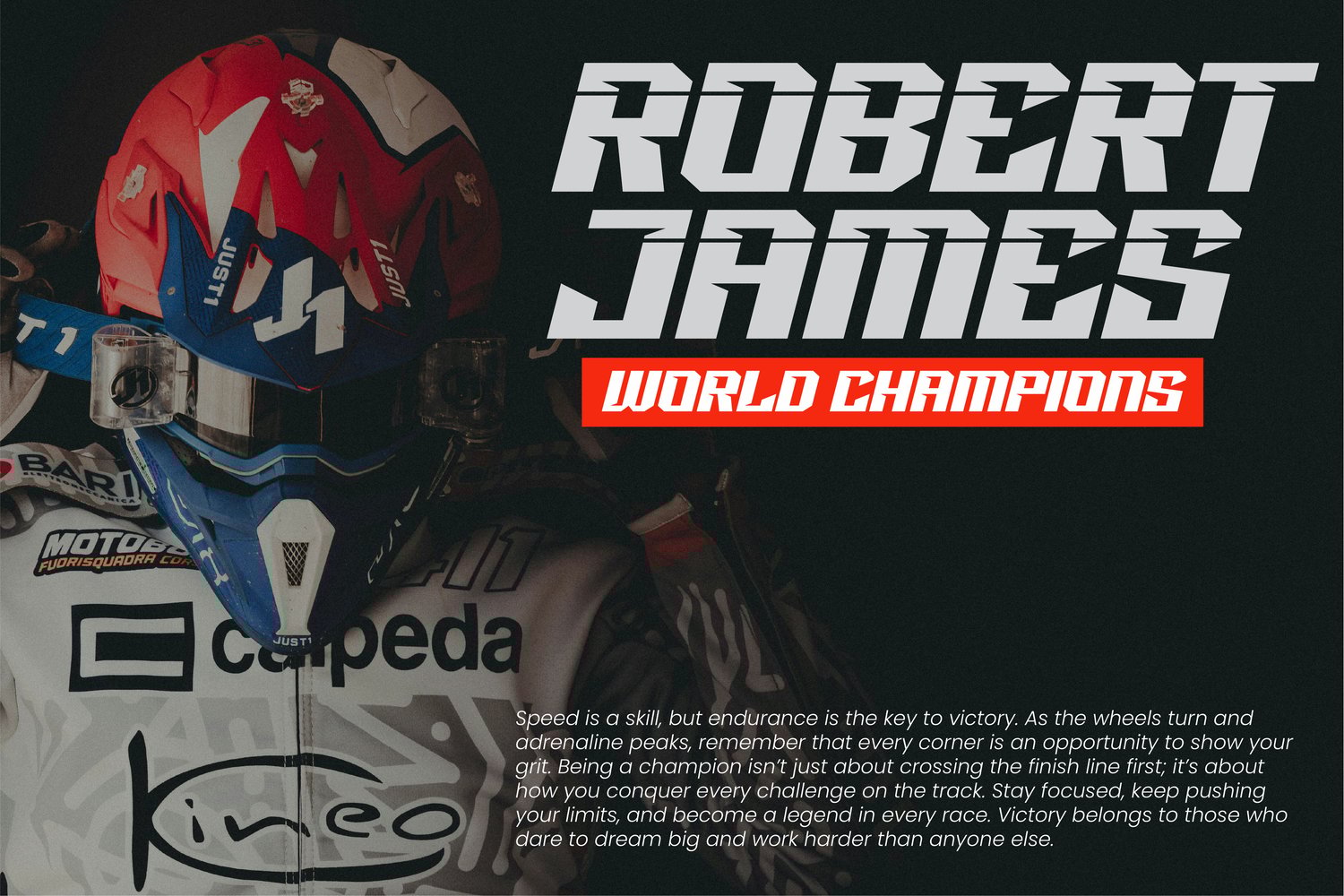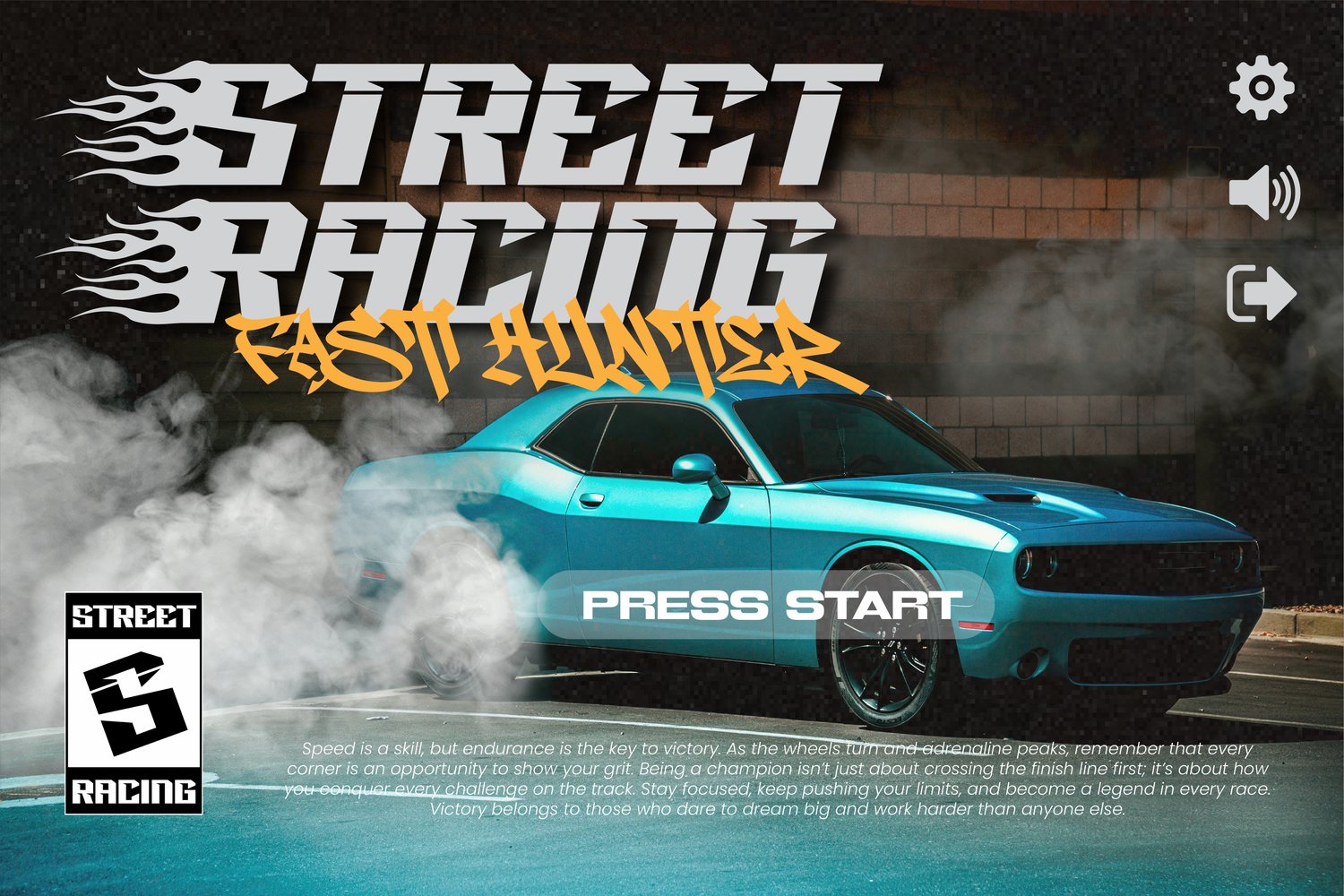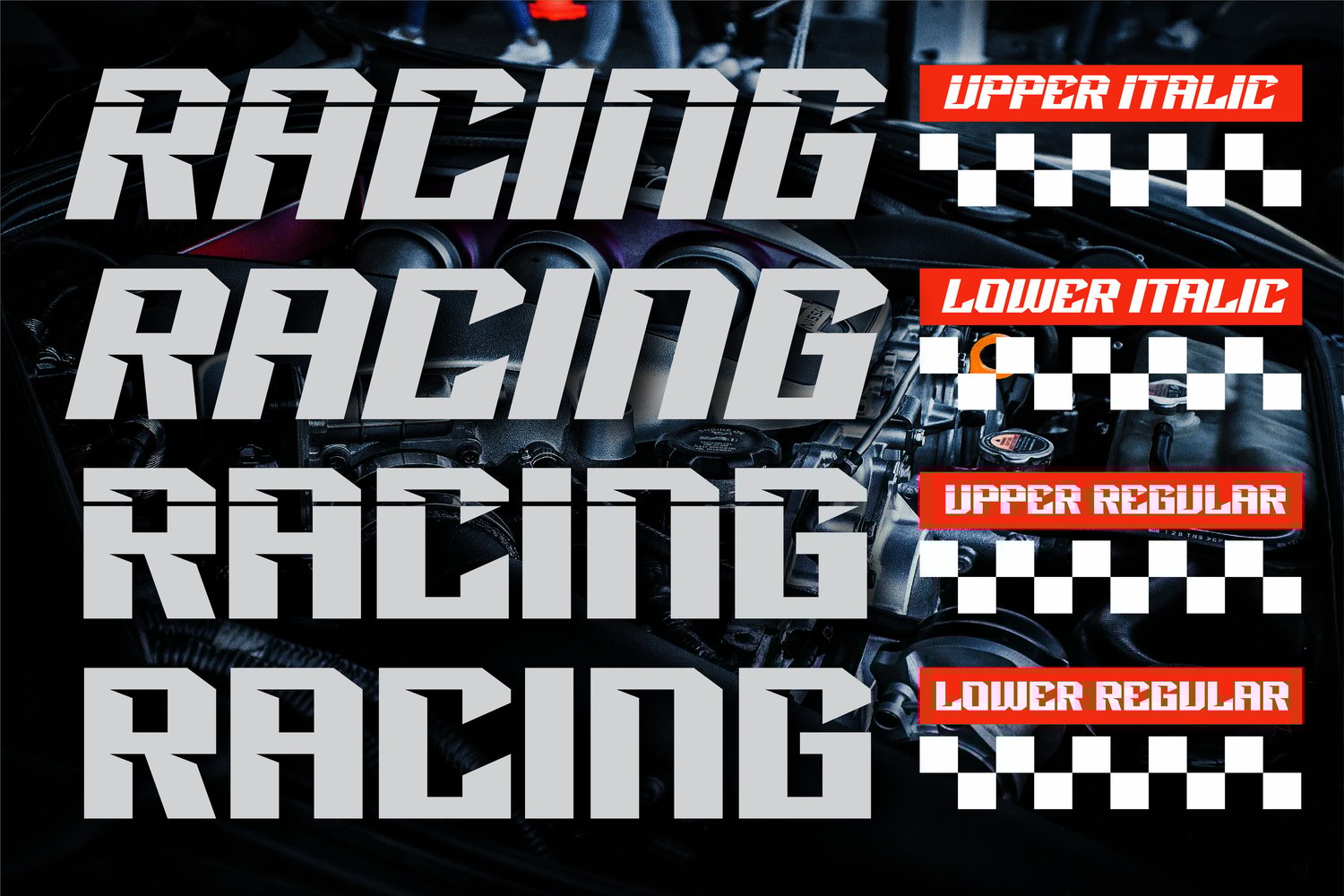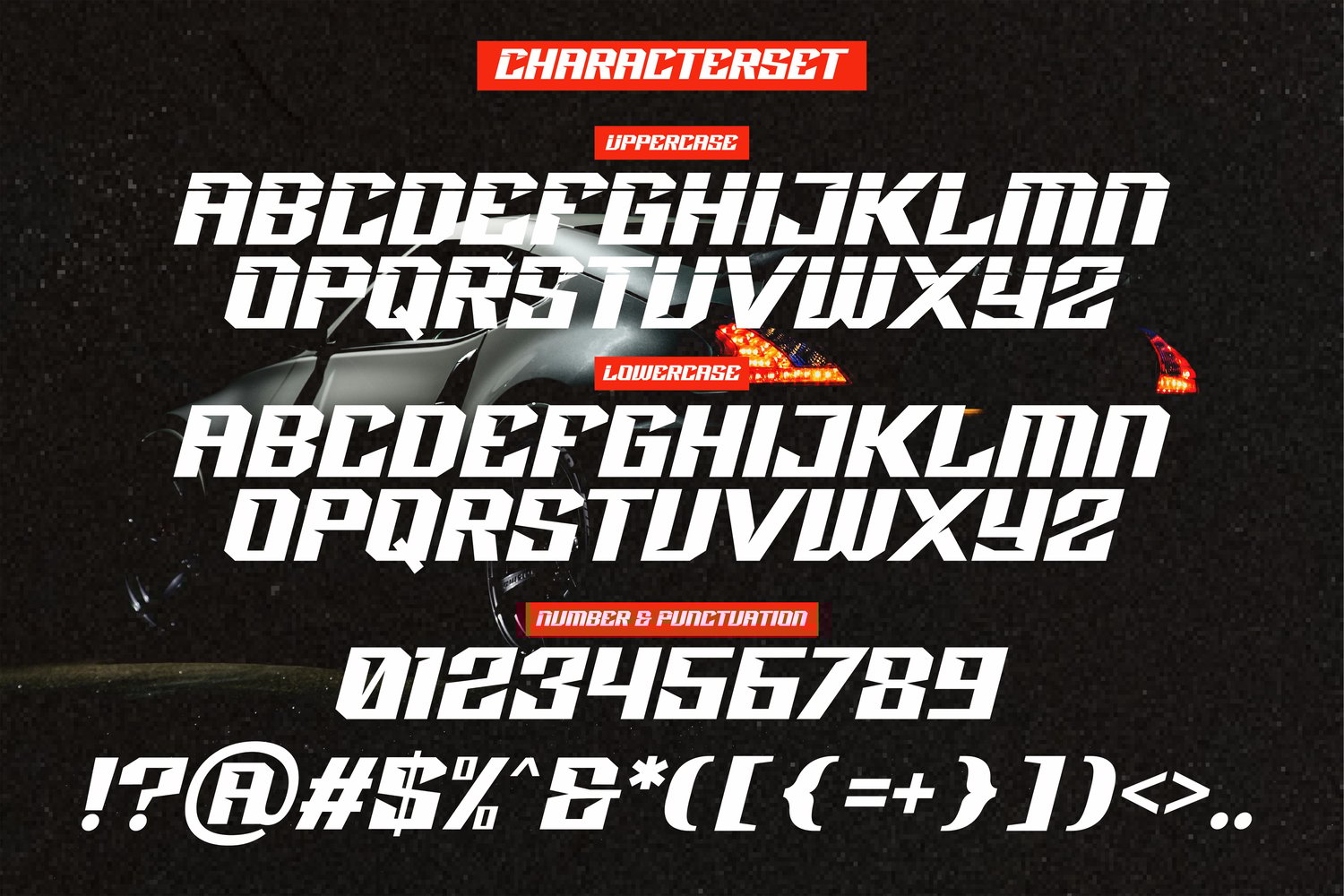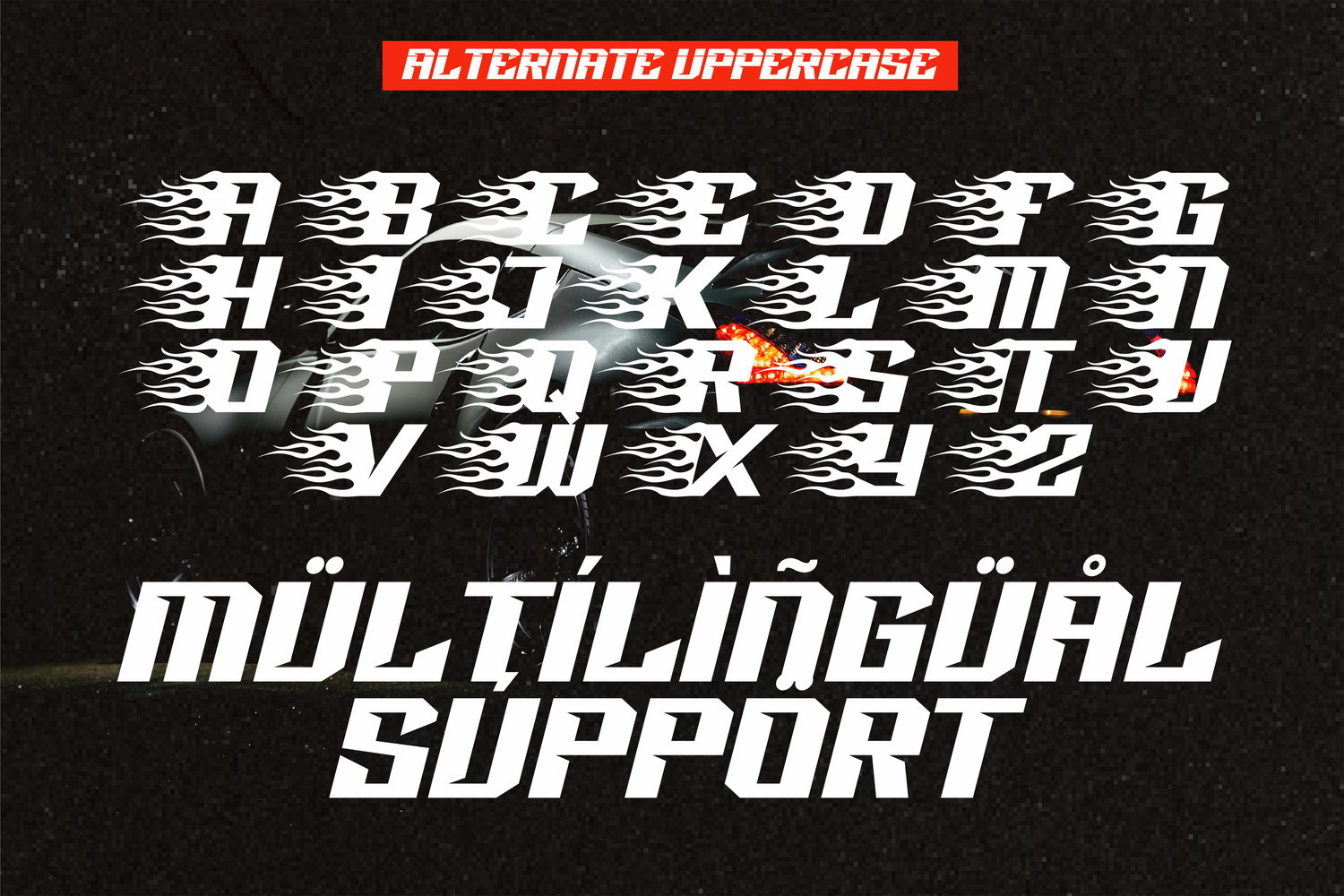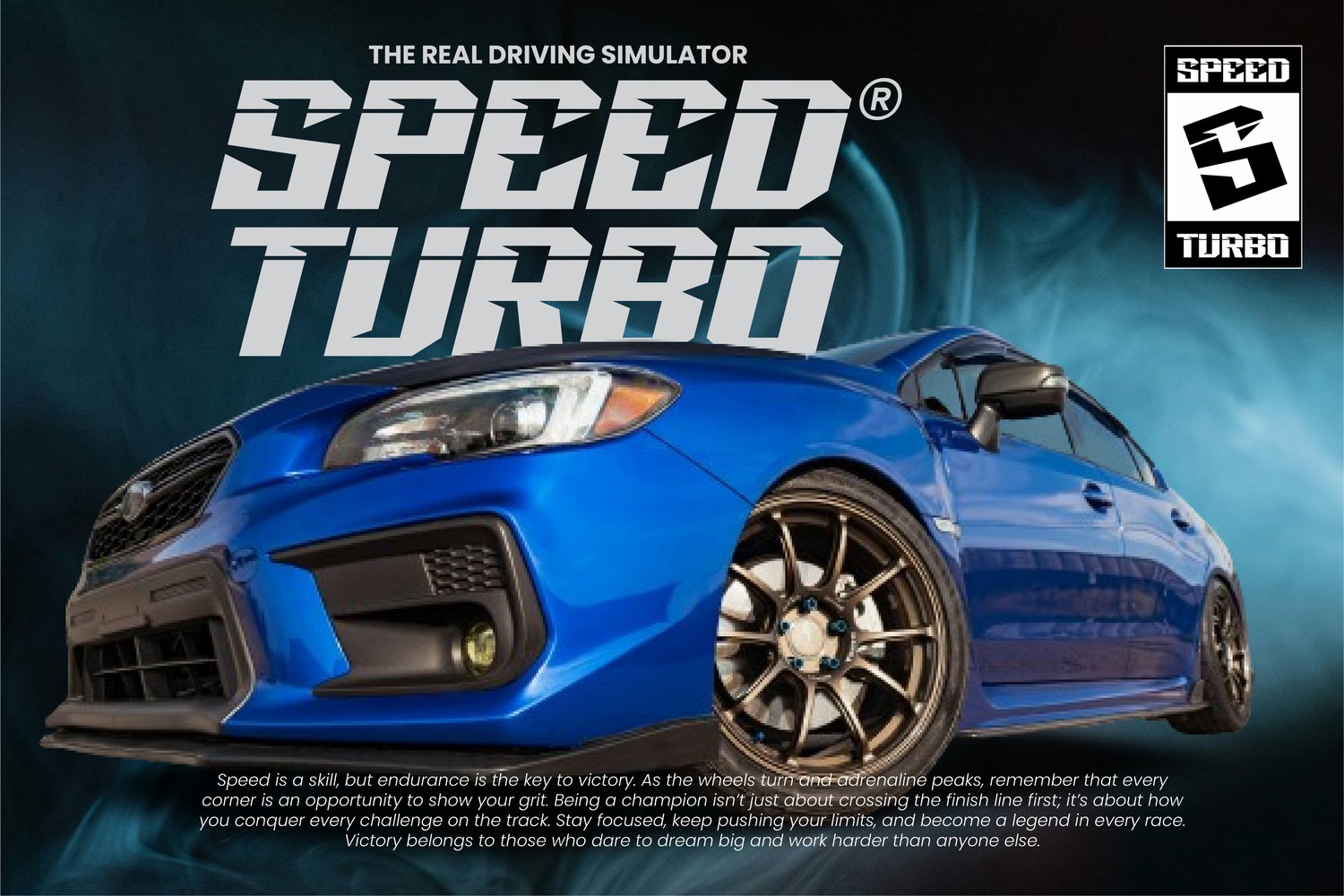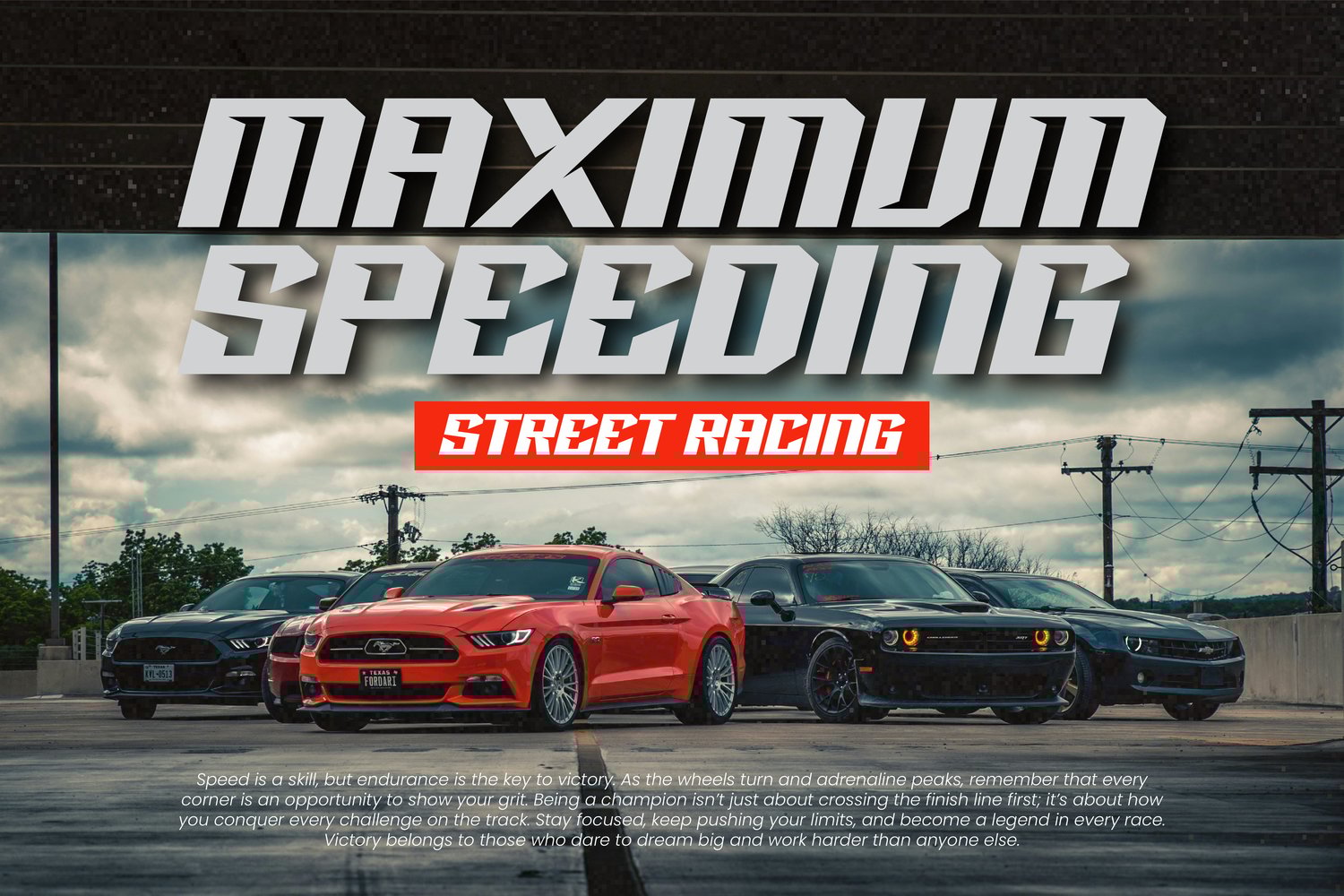
Racing Power Font is an all caps racing display font that has a very thick body, but maintains high contrast. This font looks very modern when paired with a contrasting design color. This font impresses and features a clean and elegant font, professionally shaped, and as a result, it will easily match any creation that calls for a different touch. Add it confidently to your projects, and you'll love the results. This typeface is perfect for elegant logos, branding, promotions, book covers, magazine layouts, or simply as a stylish text overlay onto any background image.